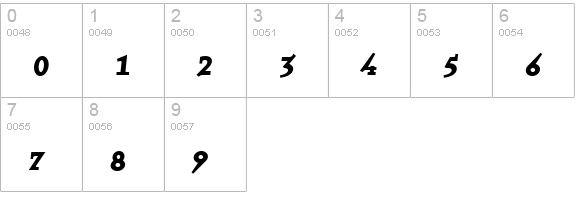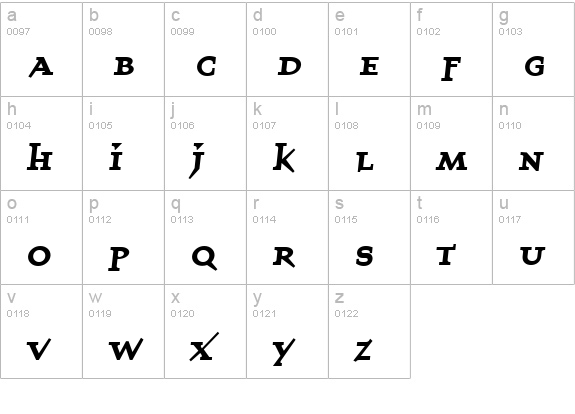
QuartetFractionsBold Bold Font Details
QuartetFractionsBold Bold is a strong, high-contrast variant in the QuartetFractionsBold typeface family \xE2\x80\x94 well suited to headlines, attention-grabbing titles, and strong calls-to-action.
QuartetFractionsBold Bold font is a stunning display typeface that exudes sophistication and elegance. Designed with precision and attention to detail, this font is perfect for making a bold statement in any design project. With its strong and commanding presence, QuartetFractionsBold Bold font is ideal for headlines, titles, posters, logos, and branding materials that require a touch of grandeur. Its bold and confident letterforms captivate the eye and command attention, making it a standout choice for those who want to make a lasting impression. What sets QuartetFractionsBold Bold font apart is its unique inclusion of beautifully crafted fractions. These meticulously designed fractions add a touch of refinement and precision, making it a versatile choice for any project that requires precise and accurate numerical representation. But what makes QuartetFractionsBold Bold font even more appealing is that it is freely available to download at FontsMarket.com. This means that designers and creatives can enjoy the benefits of this extraordinary font without any cost, making it an incredible asset for those on a budget or those who simply appreciate the value of a high-quality, free font. So whether you're designing a luxurious magazine spread, a sophisticated website, or a high-end product packaging, QuartetFractionsBold Bold font is sure to elevate your design to new heights. With its sleek and stylish aesthetic, this font is bound to leave a lasting impression on your audience while effortlessly conveying a sense of professionalism and refinement.